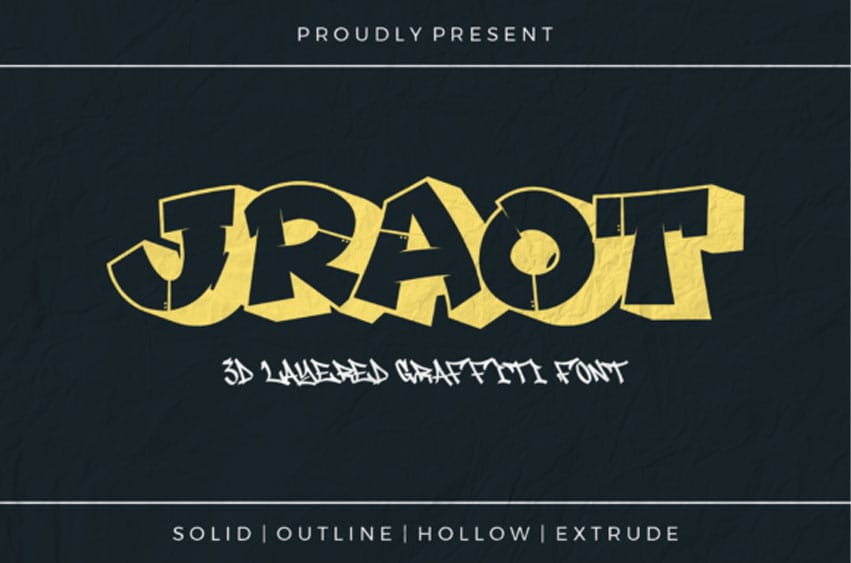
Jraot Regular Font is a bold, decorative graffiti font designed with a dynamic 3D layered structure. It comes in four versatile styles—Solid, Outline, Hollow, and Extrude—allowing endless creative possibilities.
Inspired by classic street art and urban tagging culture, Jraot brings an energetic, rebellious spirit to your design. Its sharp edges and layered dimension give depth and attitude, making it ideal for branding, posters, headlines, album covers, apparel, and more.
Whether you’re aiming for a raw street vibe or a bold graphic statement, Jraot offers the perfect mix of urban edge and typographic impact.